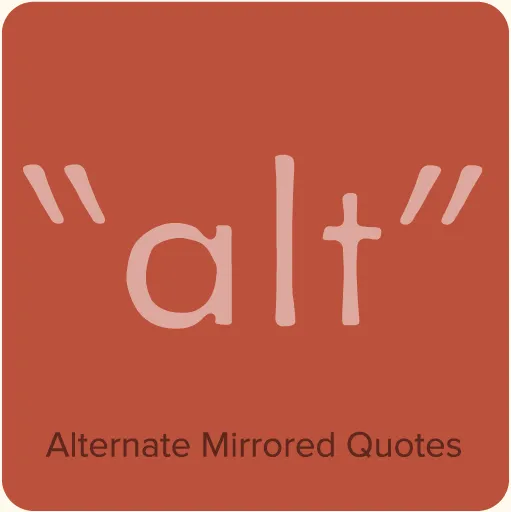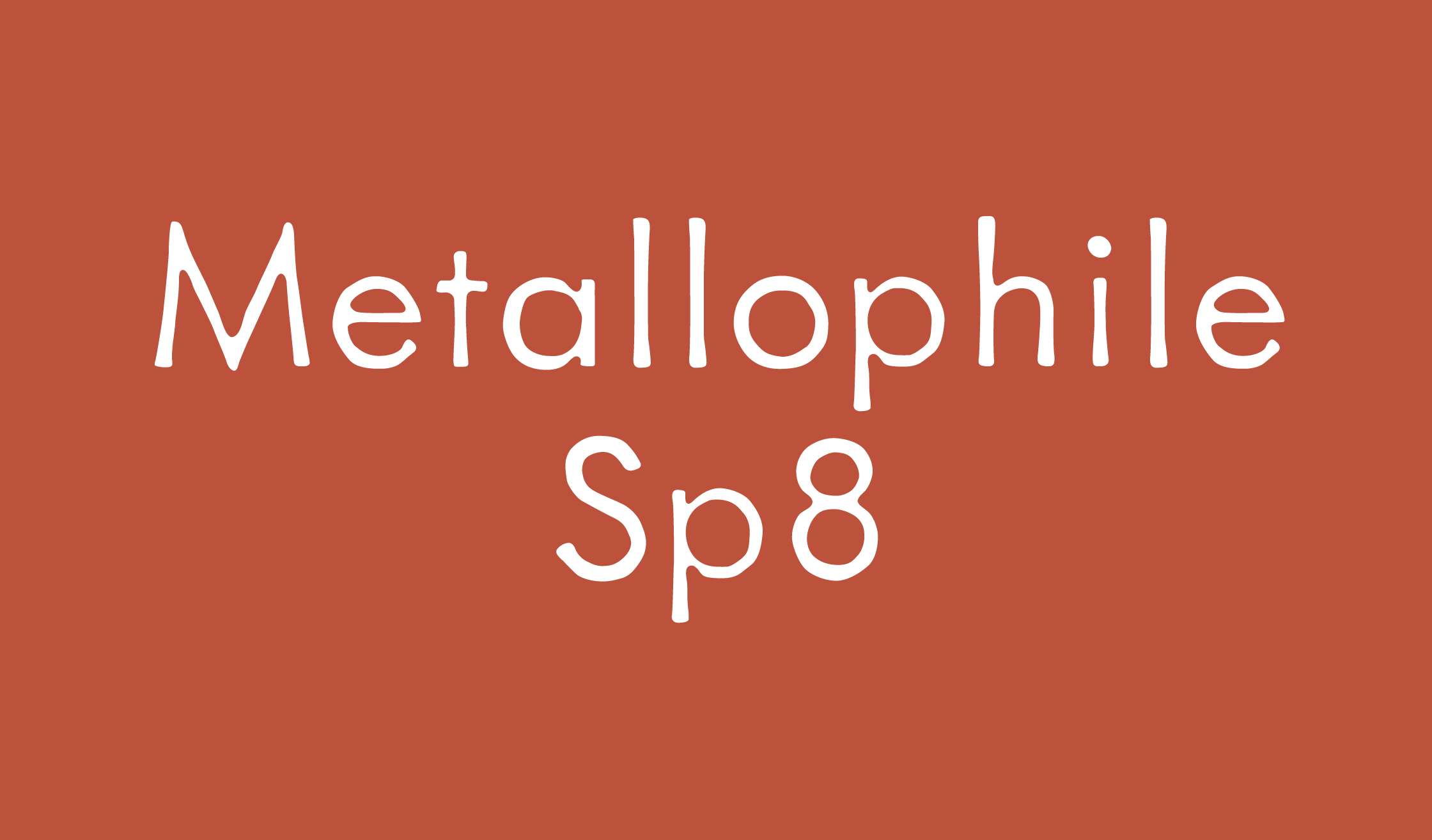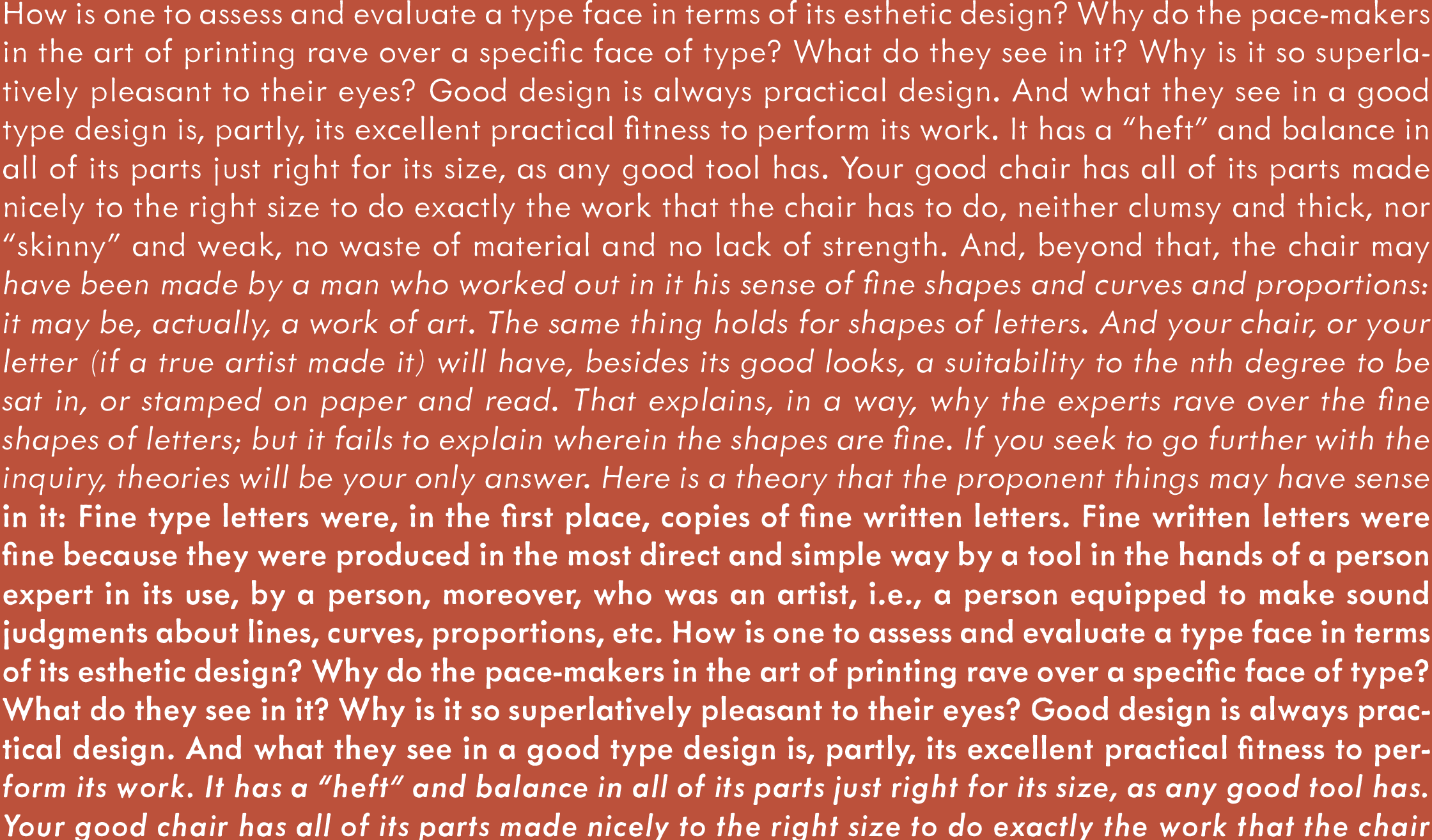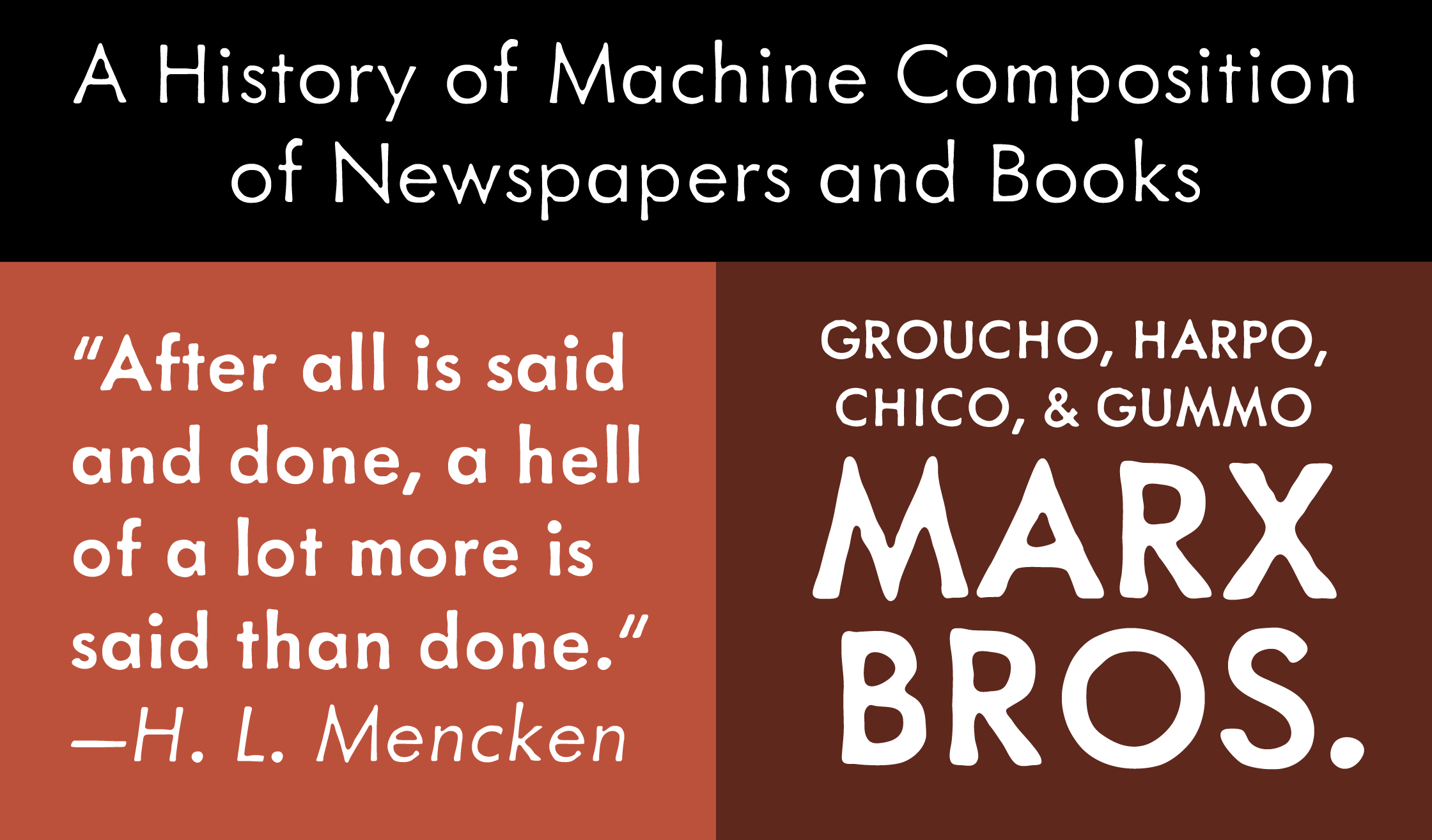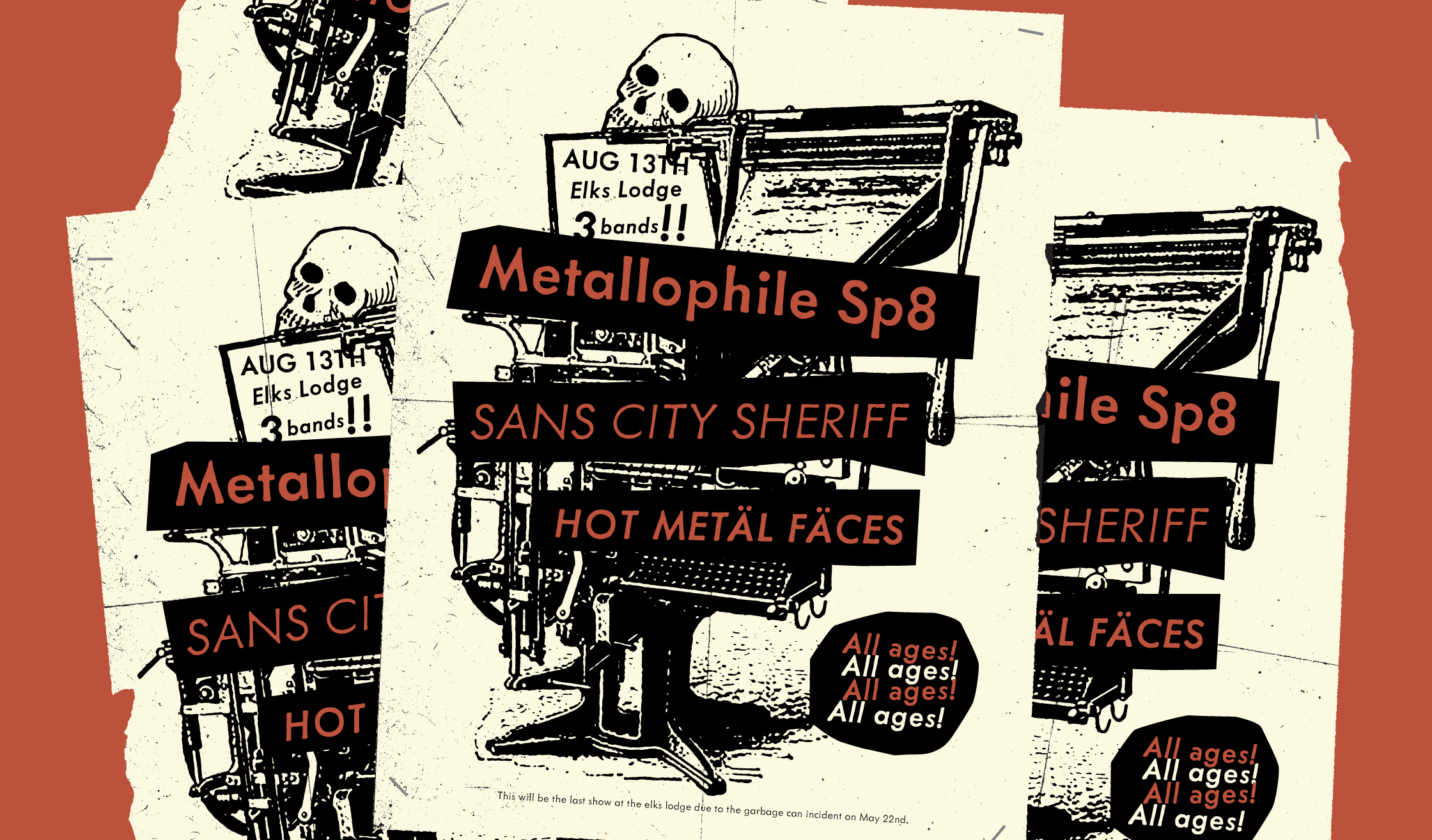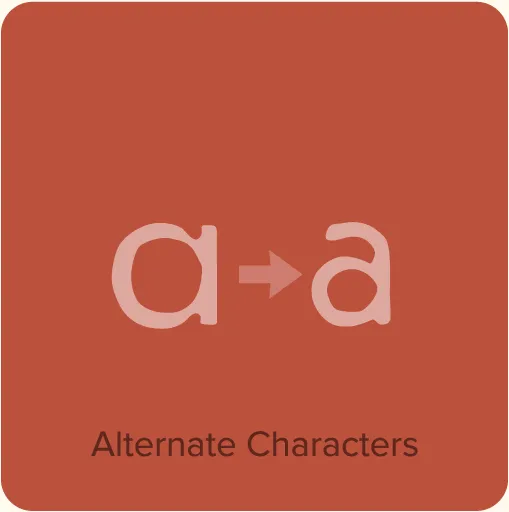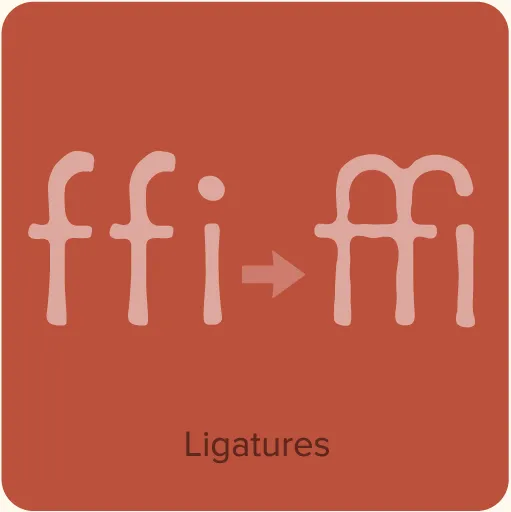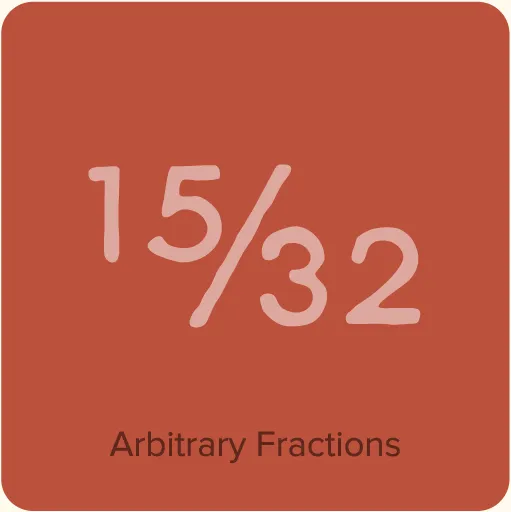
Metallophile Sp8 (2003, 2008) is a facsimile of 8-point sans serif type as set on a hot metal typesetting machine. The effect is very different from modern digital renditions of its cousin, Futura, which are coldly precise in and look quite different at text sizes. Hot metal faces were designed for specific point sizes, while modern digital faces take a one-font-for-all-sizes approach. Metallophile Sp8 captures much of the characteristic warmth of hot metal, which is particularly refreshing in such a geometric design.
Metallophile Sp8 Features
- Two weights, with italics.
- Alternate two-story lowercase “a” and alternate “ß”.*
- Alternate “mirrored” quotation marks.*
- A large set of prebuilt fractions.
- Automatic arbitrary fractions.*
- Extended language support for most Latin-based Western and Central European languages.